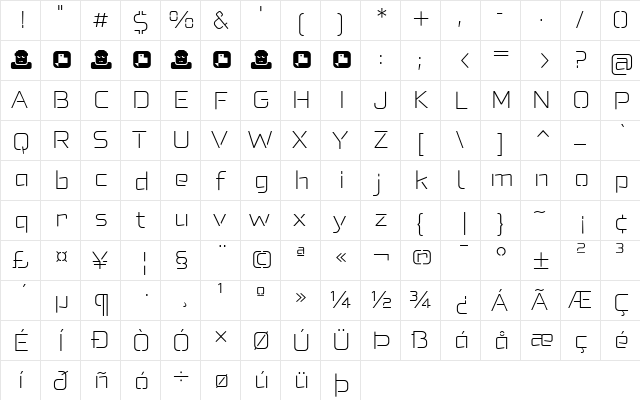
Felona st ExtLt Regular
| Foundry | deFharo |
| Designer | Fernando Haro |
Design Context for Felona st ExtLt Typeface
Felona st ExtLt takes a measured approach to typography — its balanced proportions and neutral character make it a reliable workhorse for both digital and print work.